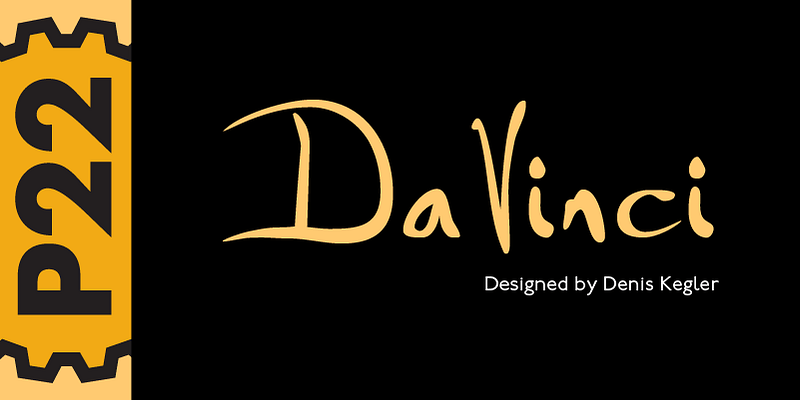
P22 Da Vinci Font Free Download is a unique and elegant typeface inspired by the Renaissance era, reflecting the artistic and scientific genius of Leonardo da Vinci. With a blend of classic calligraphy and modern refinement, this font is perfect for projects that require sophistication, history, and creativity, such as editorial design, book covers, branding, and invitations.
The P22 Da Vinci Font combines organic curves with structured lines, creating a timeless, elegant feel that works well in both large display settings and smaller body text. Whether you're designing for a historical-themed event, luxury branding, or artistic projects, this font will add a refined touch to your typography.